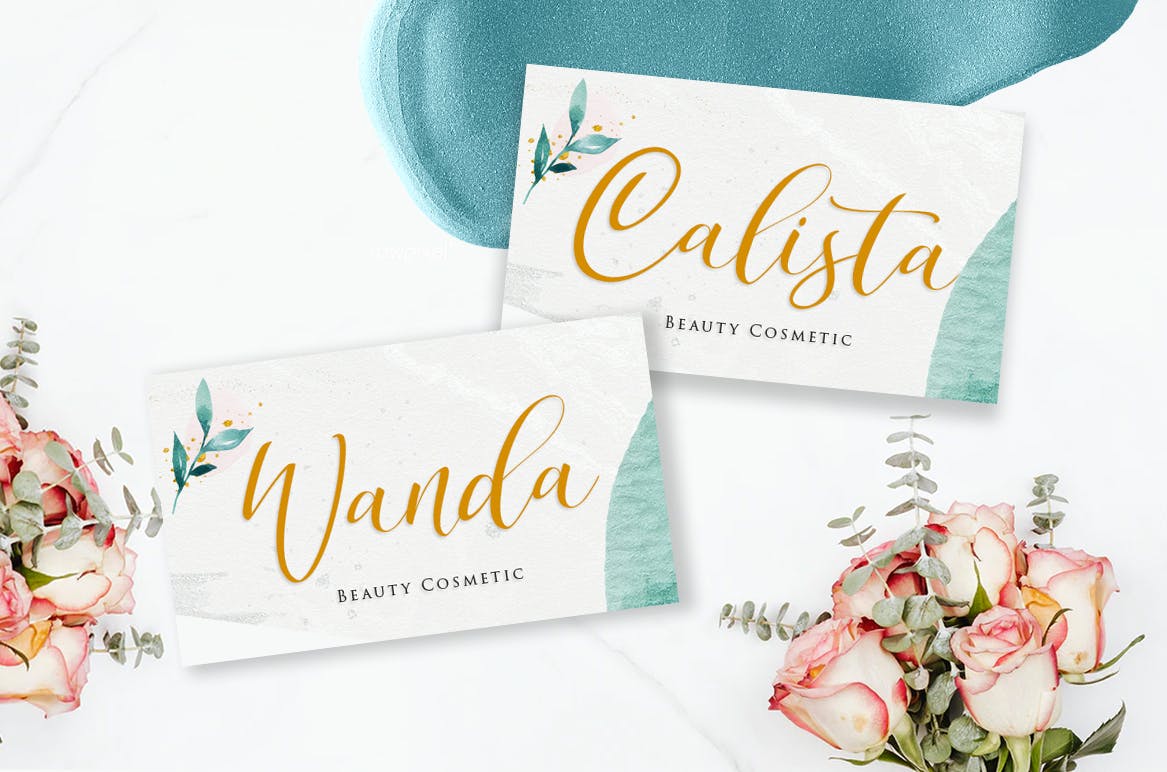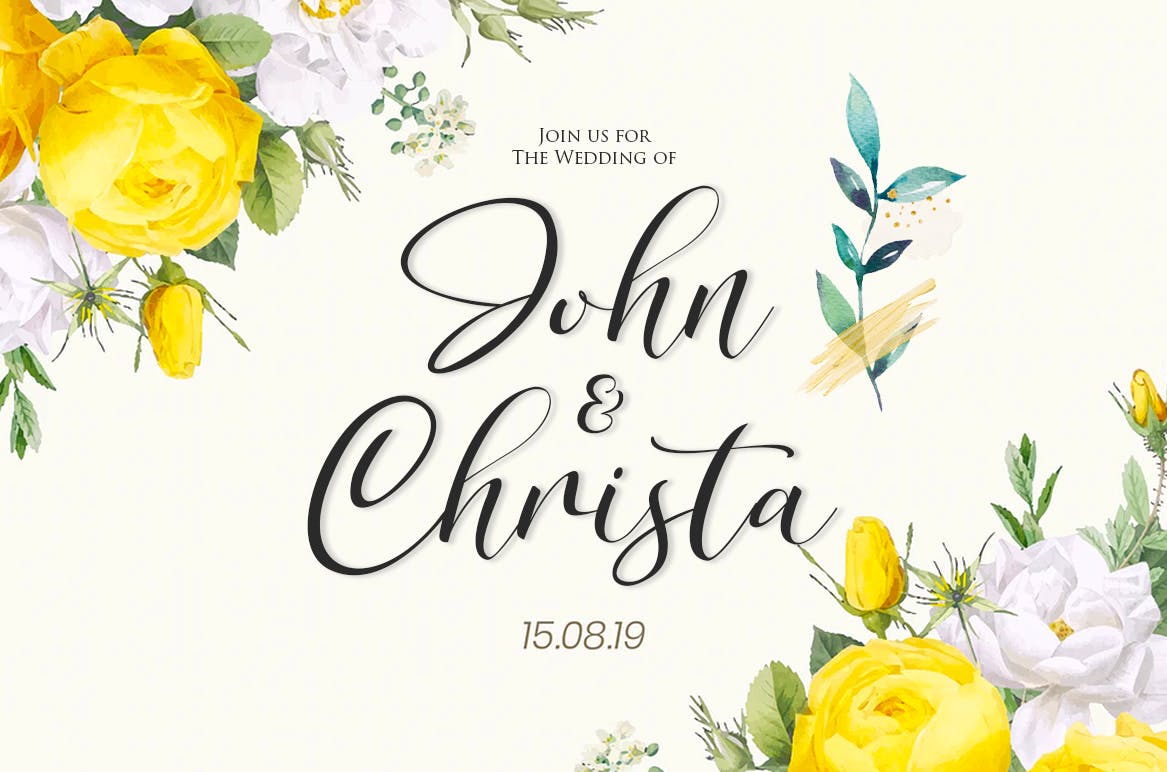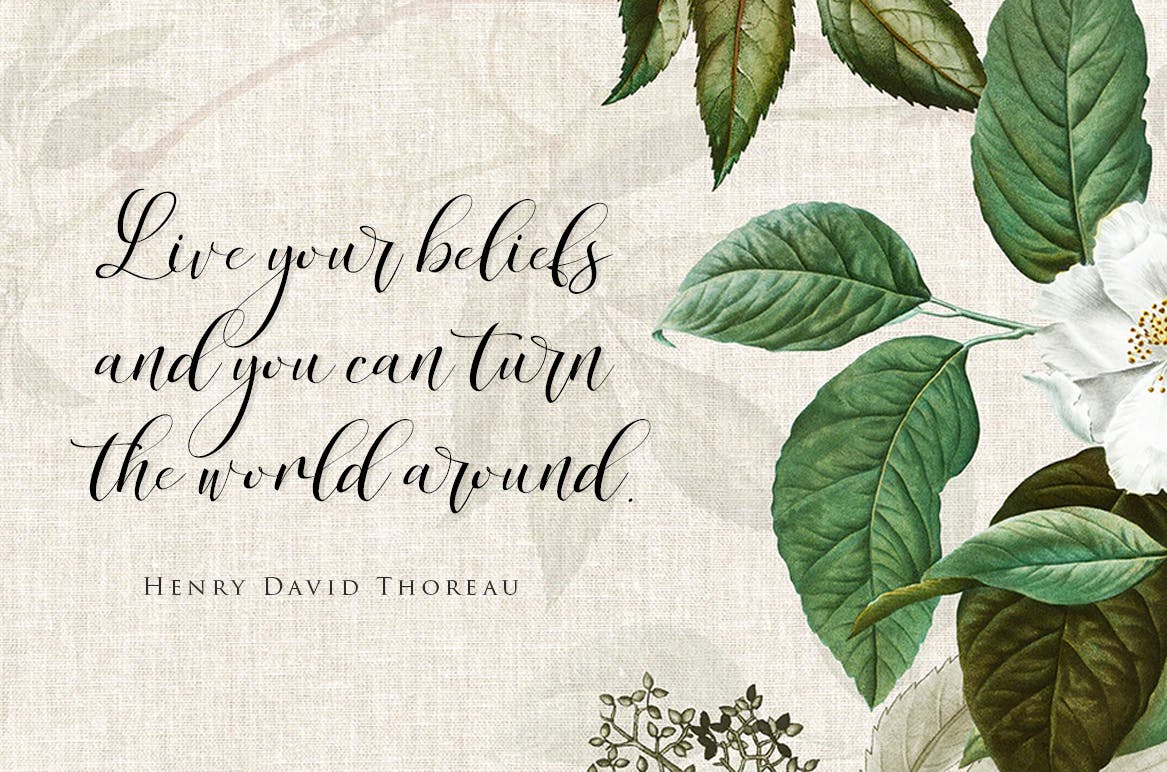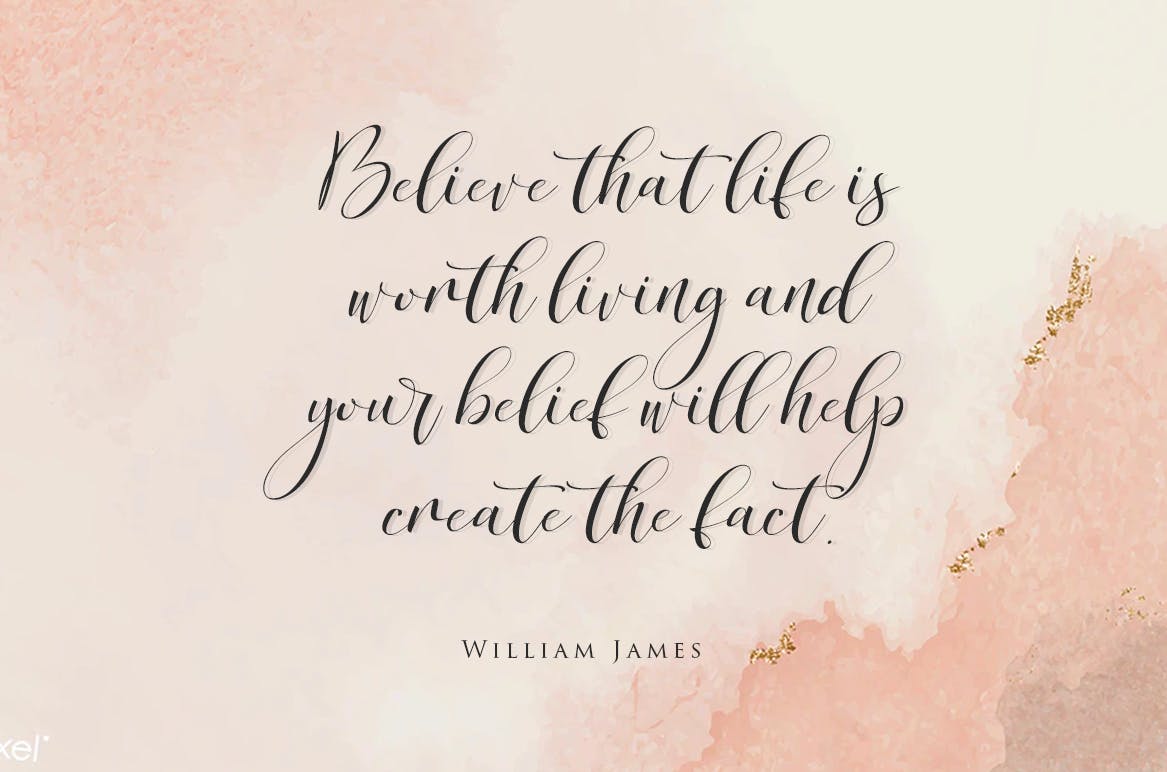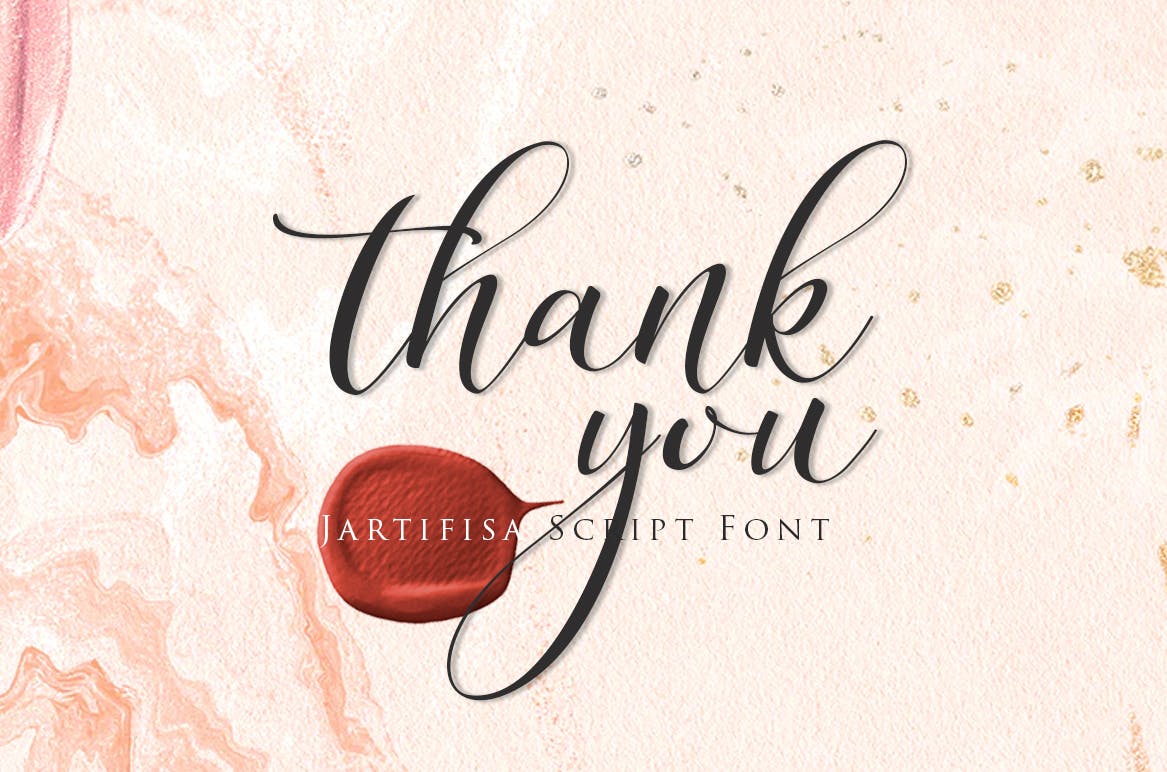
Free Demo Jartifisa Script Font
Free Demo Jartifisa Script Font is a strong and playful script inspired by the natural beauty of flowers. Fall in love with its organic charm, and take any spring craft to the next level. It is suitable for your works such as wedding invitations, gift cards, logos, congratulations cards, and more. This demo font is also coming with an OTF format file that you can easily install and use on your devices as well. So, this is a font that comes with a personal use license, go purchase the premium version to use it on your commercial use.